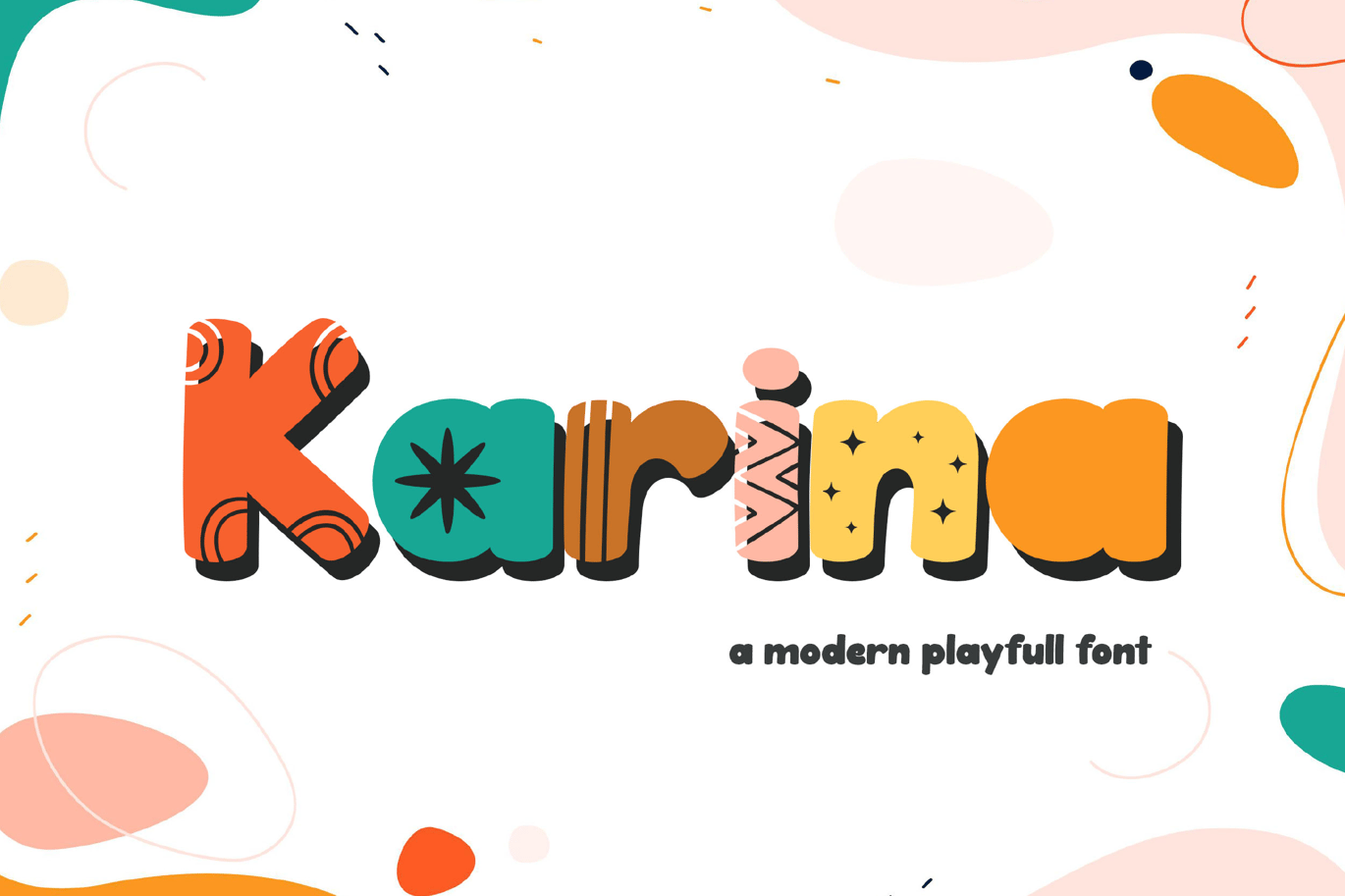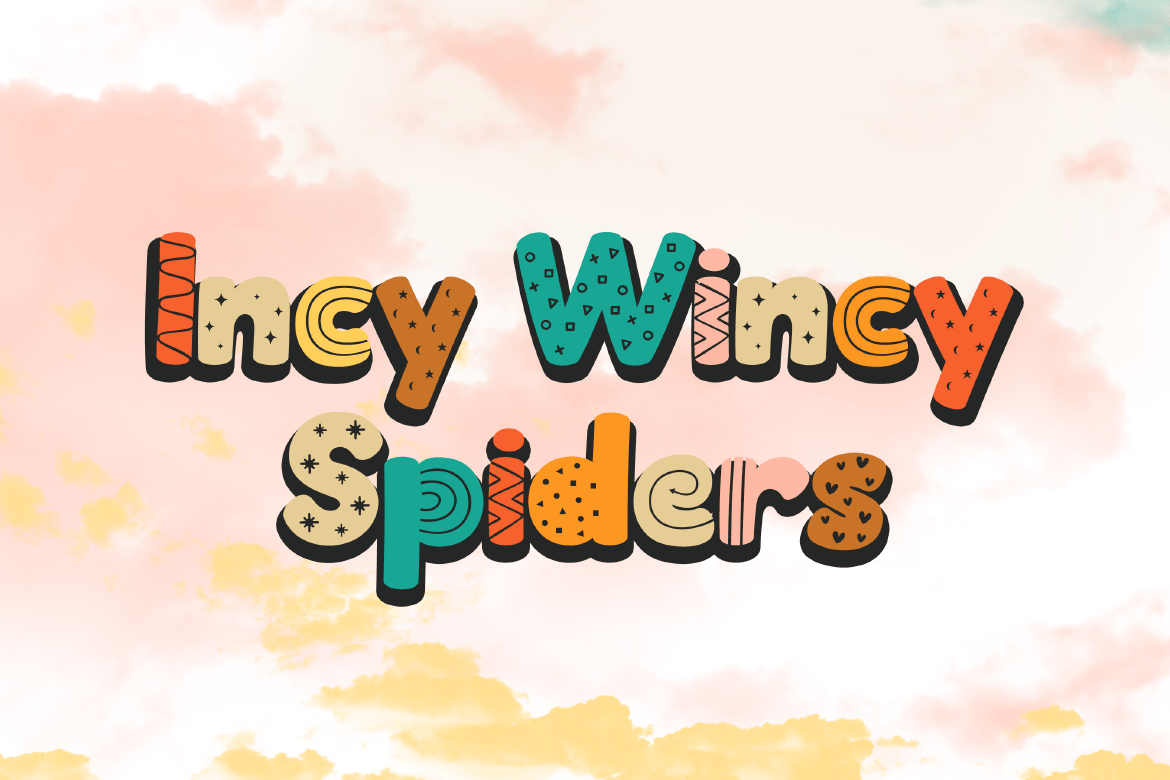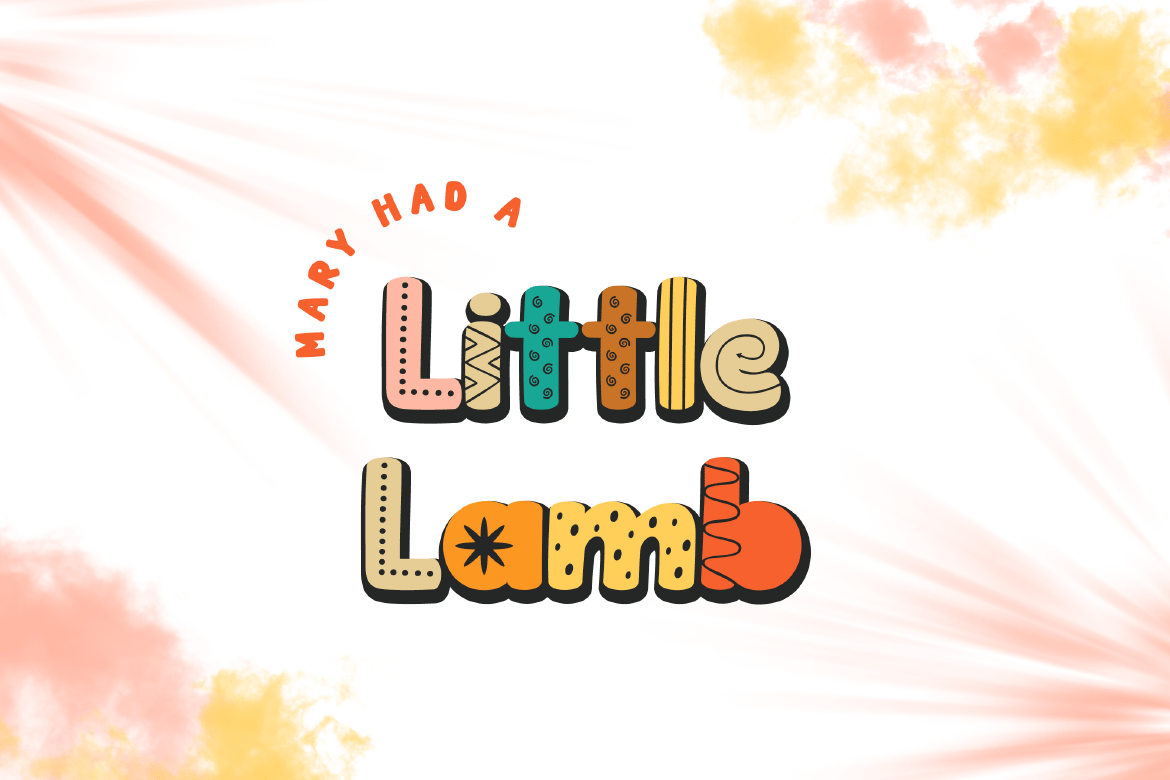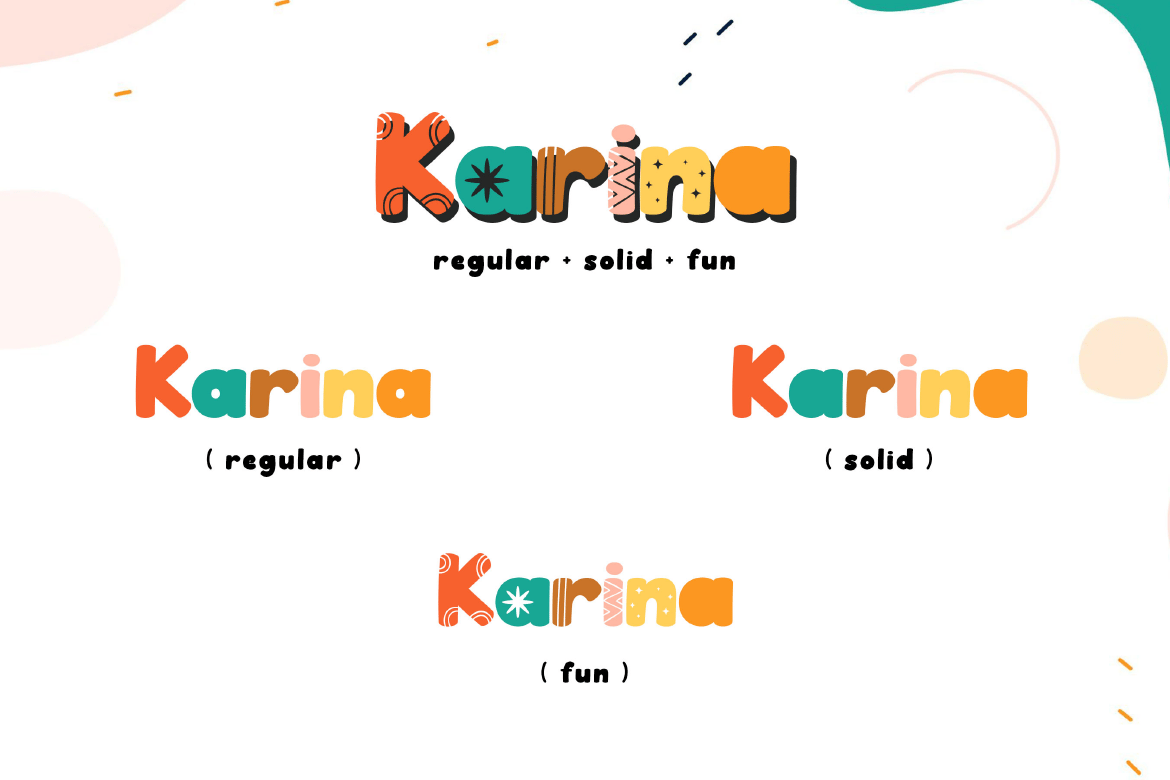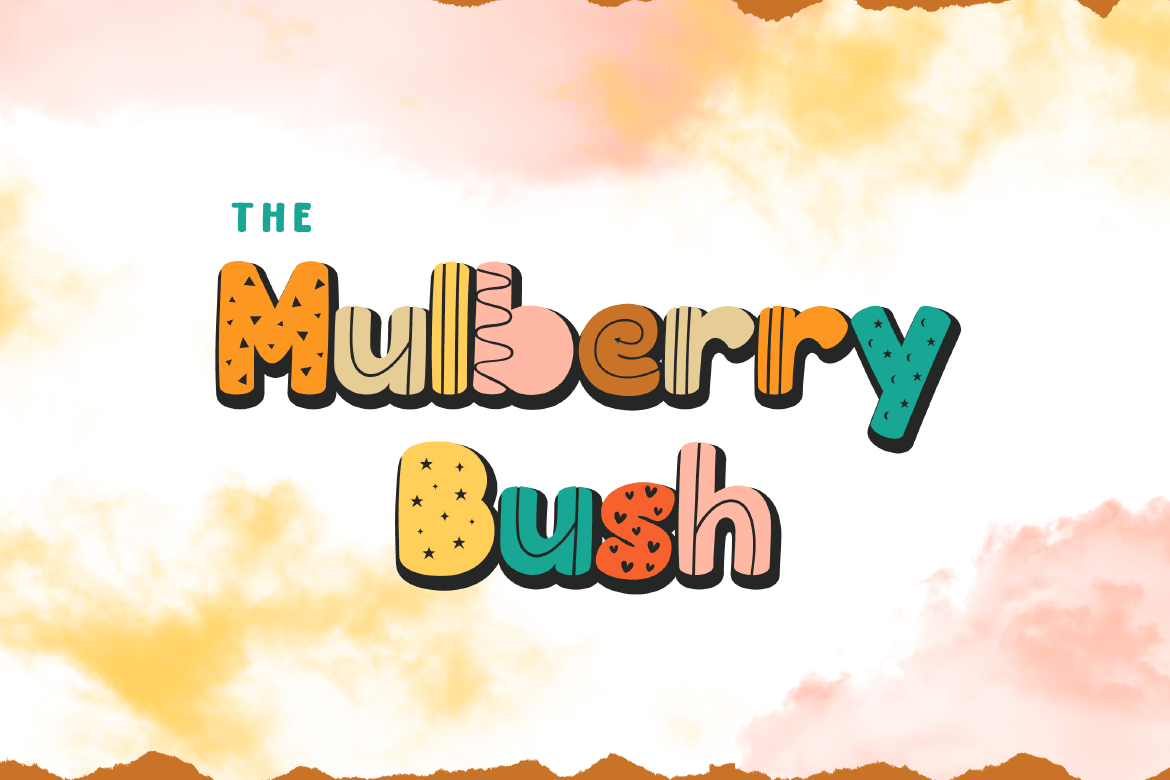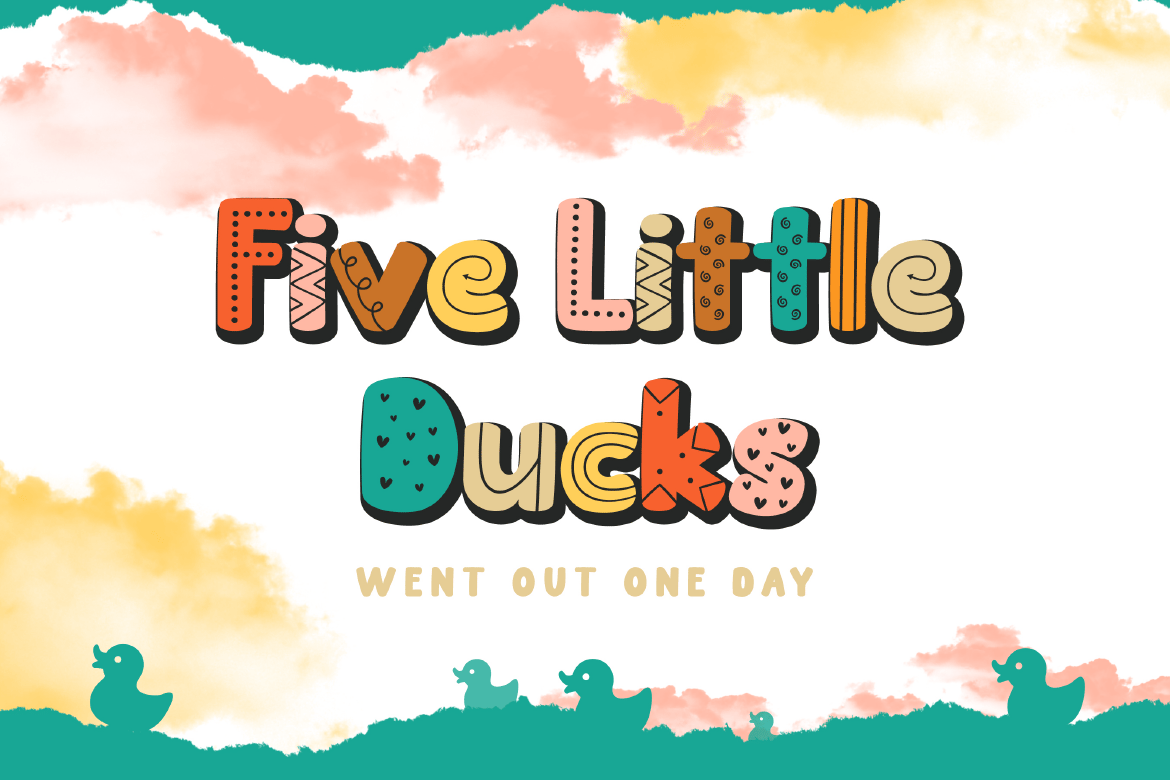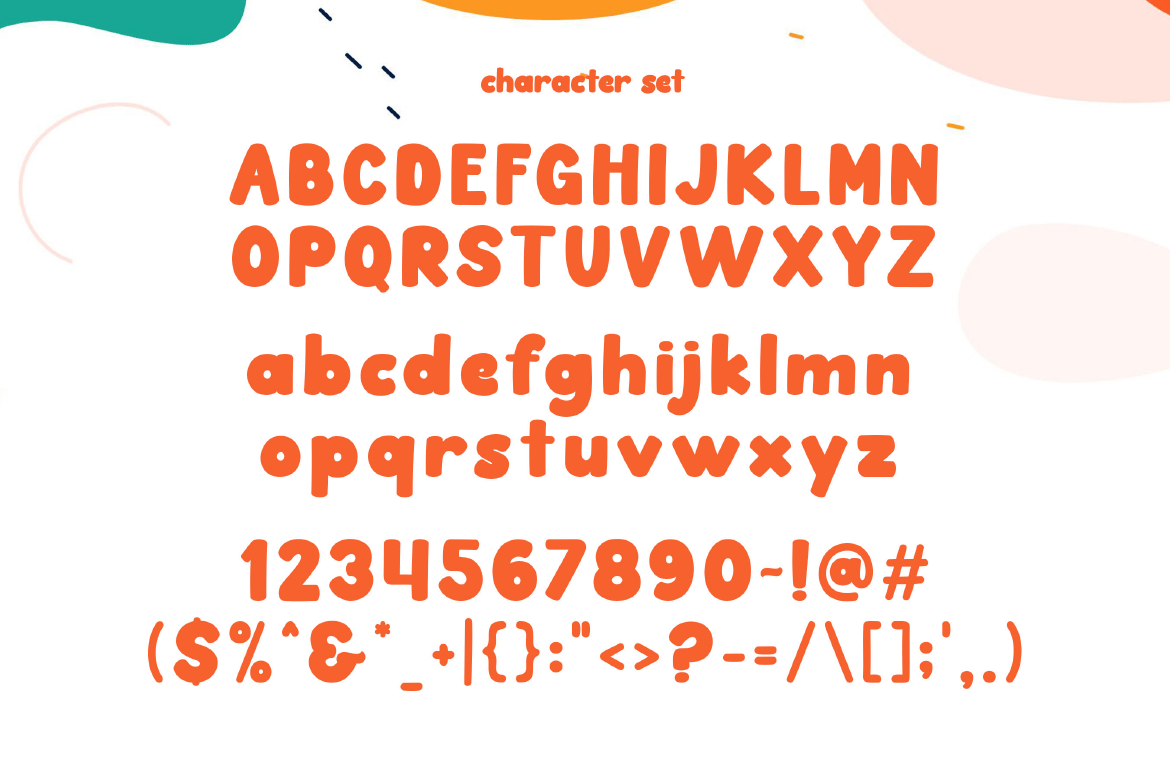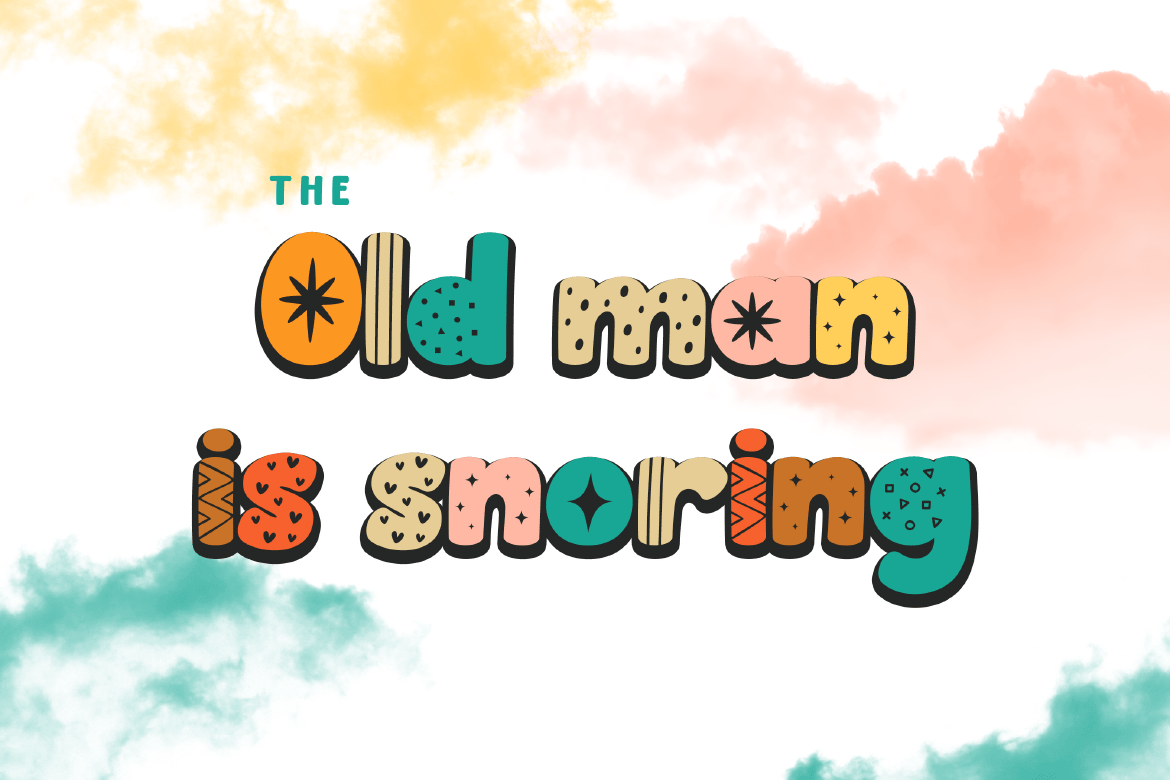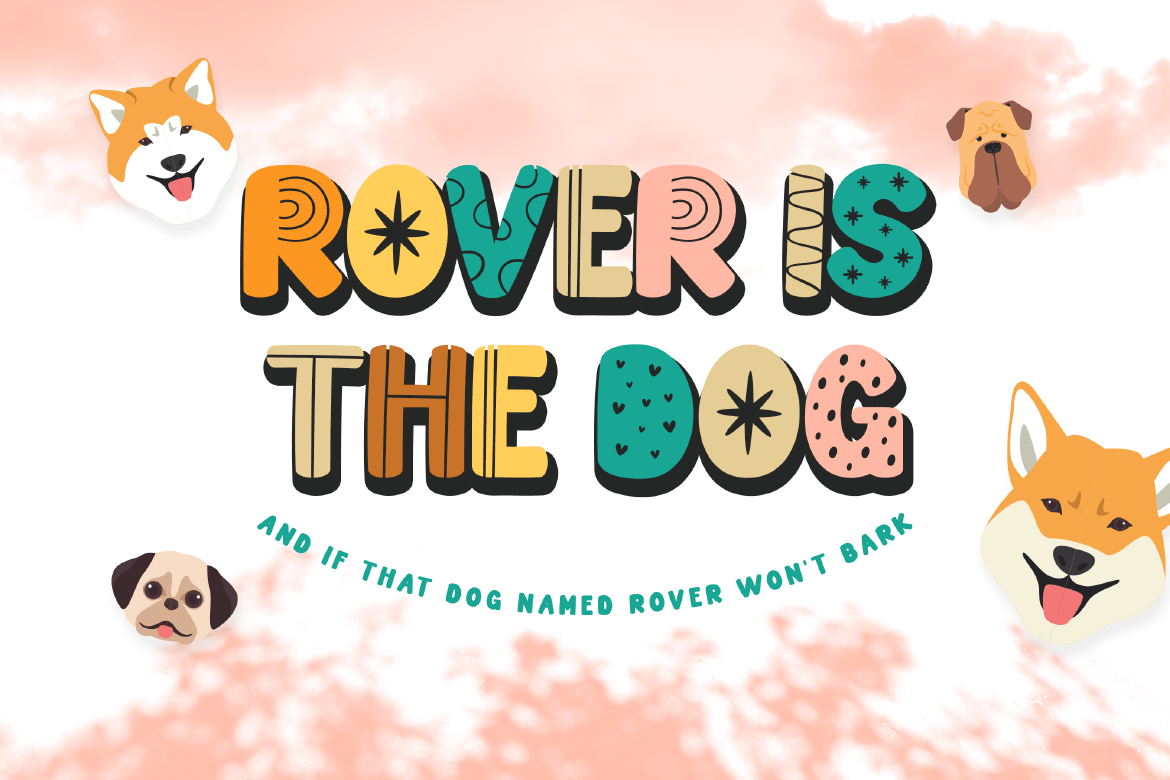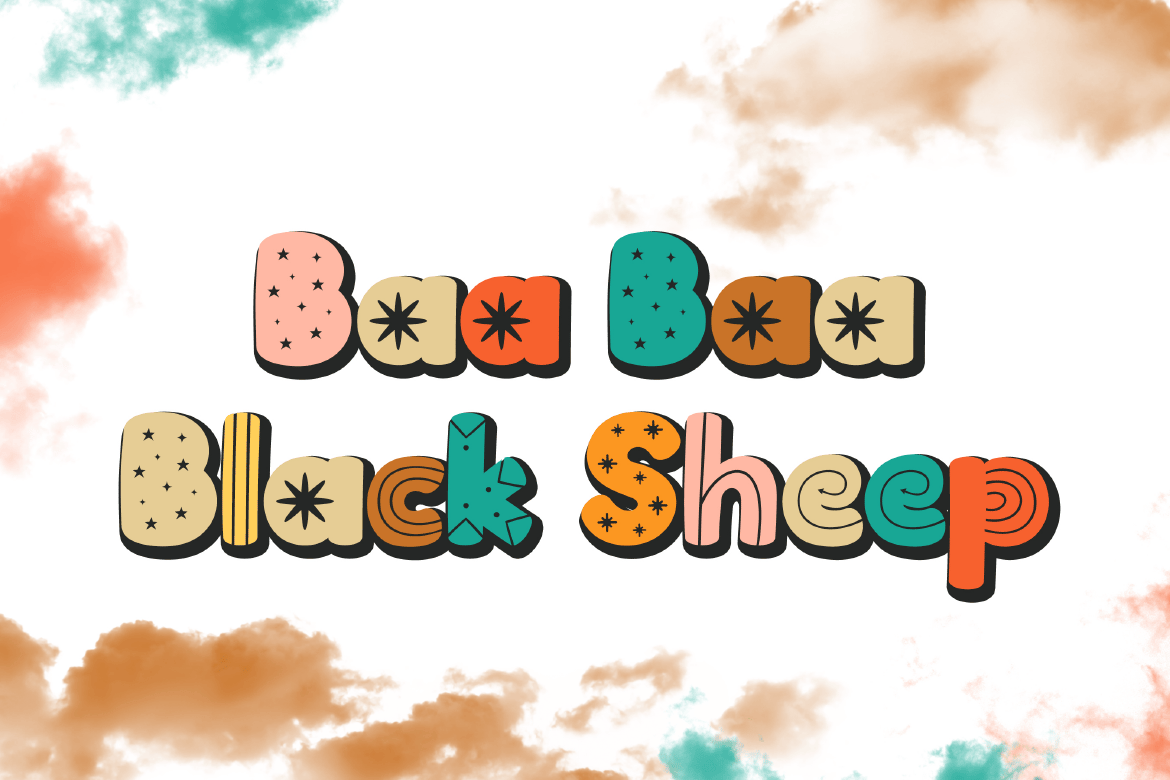
Karina Modern Playful Font
Introducing “Karina” is a modern playful font. Step into a world of contemporary charm with “Karina,” a font designed to infuse your projects with a perfect blend of modern aesthetics and playful whimsy. Karina doesn’t just bring letters to life; it introduces a dynamic trio of styles — regular, extrude, and fun — adorned with patterns in fun styles that add an extra layer of delight to your designs. This font is suitable for any graphic design such us, branding materials, t-shirts, logos, posters, business and others.
Alternate Character